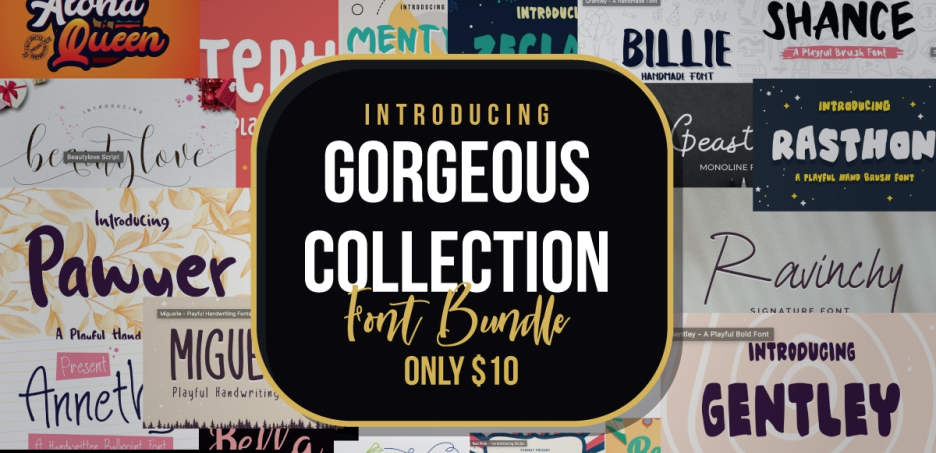
Introducing the Gorgeous Collection Font Bundle, a carefully curated selection of stunning typefaces designed to elevate your creative projects. This bundle includes a variety of font styles, from elegant serifs to modern sans-serifs, ensuring you have the perfect typography for any occasion.
- Diverse font styles: serif, sans-serif, script, and display
- Multiple weights and styles for versatility
- 10 unique font families
- Comprehensive character sets, including multilingual support
- Weights: Light, Regular, Bold, and Italic options
Utilize these fonts for branding, logos, web design, print materials, and user interfaces. Their versatility makes them suitable for a wide range of projects.